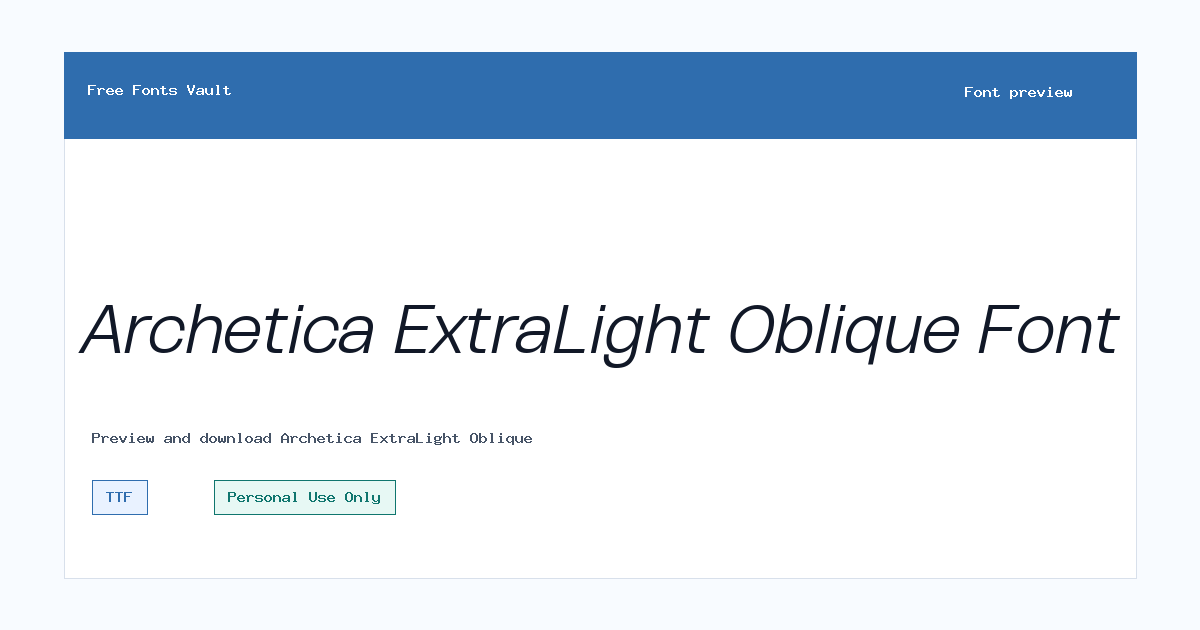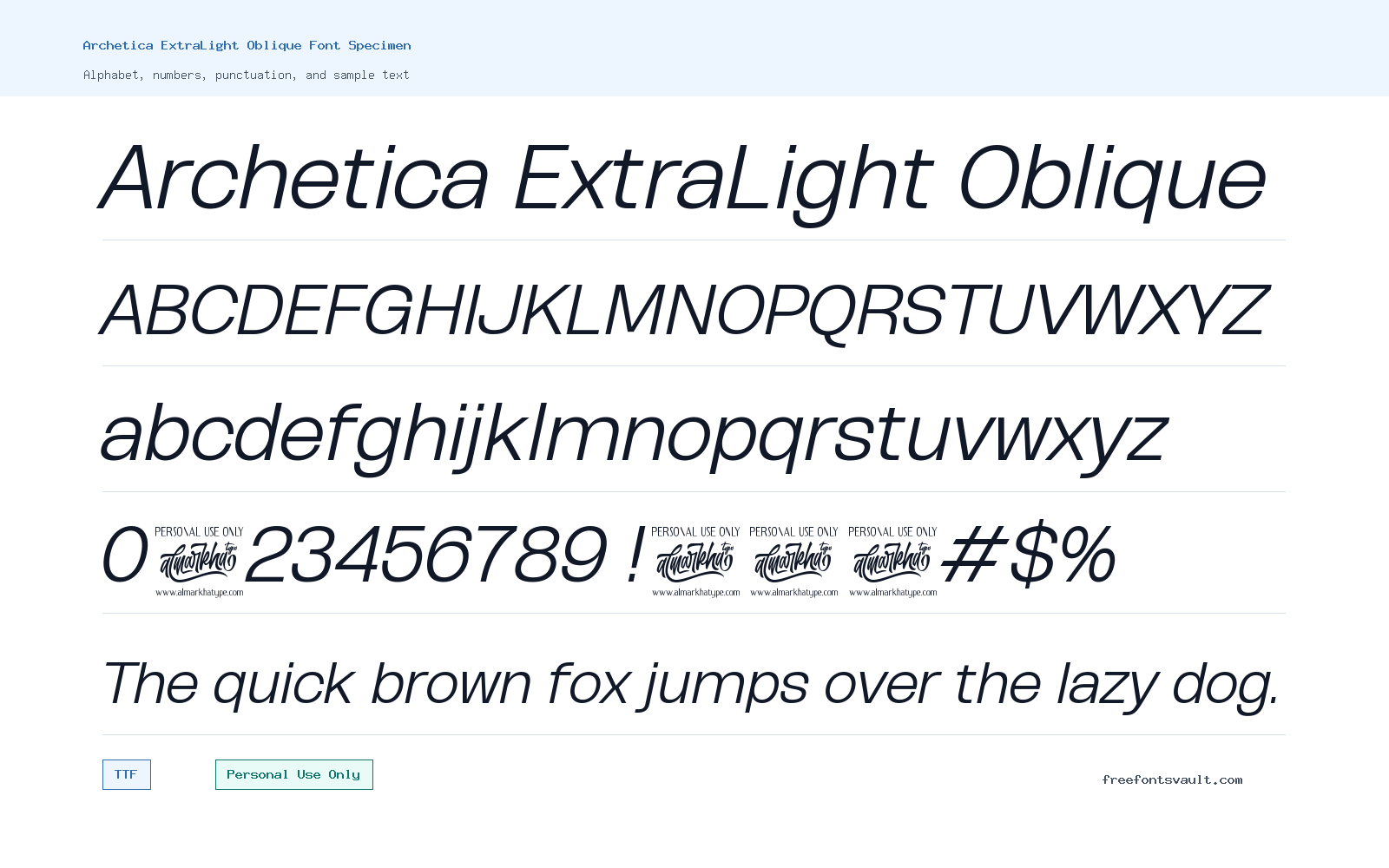
Archetica ExtraLight Oblique
- Designer Ridwan Fadilah & Malik Wisnu
- Foundry Almarkhatype
Archetica ExtraLight Oblique is a light, slanted sans serif style from the Archetica family. Its thin weight and oblique angle make it useful for clean display text, elegant headings, and design tests where a softer italic-like tone is needed.
Archetica ExtraLight Oblique sits on the delicate side of sans serif typography. The ExtraLight weight keeps the strokes fine, while the oblique style gives words a forward lean without turning the design into a decorative script. That combination can work well when you want text to feel polished, quiet, and modern, especially in short lines where the thin details have room to breathe. It is not the kind of font to choose for long body copy at small sizes, because lighter weights can lose clarity when they are reduced too far or used on low-contrast backgrounds.
For designers, this style is best treated as a display or accent font rather than a general text face. Try it in logo drafts, fashion-style headings, portfolio covers, poster subheads, editorial mockups, web hero sections, and social graphics where the text is large enough to show the shape of the letters. The oblique angle can add motion to a layout, but it should be used with restraint. If every text block is slanted and thin, the design may become harder to read. A practical approach is to use Archetica ExtraLight Oblique for a title, tagline, pull quote, or label, then pair it with a regular-weight sans serif for paragraphs, menus, captions, and supporting copy.
- ExtraLight sans serif style with a fine, minimal stroke weight
- Oblique italic-style angle suited to short display text and refined accents
- Font style is marked as italic with a listed weight of 300
- Works best when tested at larger sizes with strong contrast
- Logo concepts and wordmark experiments for personal projects
- Poster titles, event graphics, and clean promotional layouts
- Website hero headings and landing page mockups
- Editorial covers, portfolio pages, and presentation titles
- Short taglines, pull quotes, labels, and elegant text accents
- Social media graphics where the font can be used large enough to stay readable
Archetica ExtraLight Oblique is credited to Ridwan Fadilah and Malik Wisnu, with Almarkhatype listed as the foundry.
Use the preview tool to test your own words before downloading. Thin oblique fonts can look beautiful in large headings but may become fragile in small navigation, dense paragraphs, or low-resolution images. For stronger layouts, pair this font with a more neutral upright sans serif in a regular or medium weight. Keep plenty of spacing around the text, use a background with clear contrast, and avoid applying heavy effects that can blur the fine strokes. In logo work, test the name at several sizes, including a small version, to make sure the thin letters still hold together.
What kind of font is Archetica ExtraLight Oblique?
It is a light oblique sans serif style. The listed weight is 300, and the style is marked as italic.
What is Archetica ExtraLight Oblique best used for?
It is best for short display text such as logos, headings, posters, portfolio covers, web mockups, and taglines. It is less suitable for long body copy at small sizes.
How should I pair Archetica ExtraLight Oblique?
Pair it with a simple upright sans serif in a regular or medium weight. Let Archetica ExtraLight Oblique handle the accent text, while the companion font carries longer reading sections.
Is this font good for website body text?
It is better for large display text than body text. The thin weight and slanted style can become harder to read in long paragraphs or small interface text.